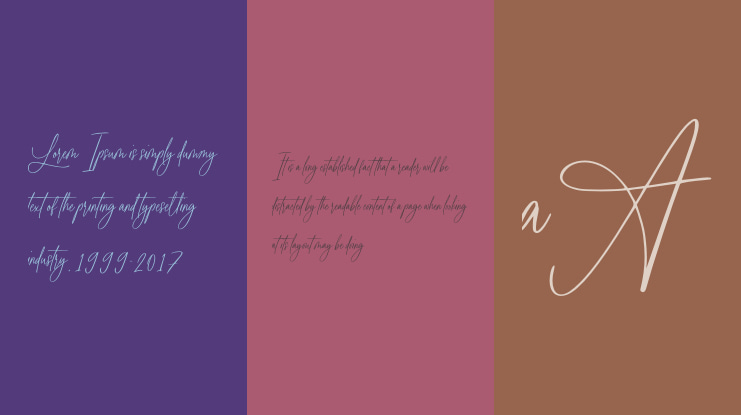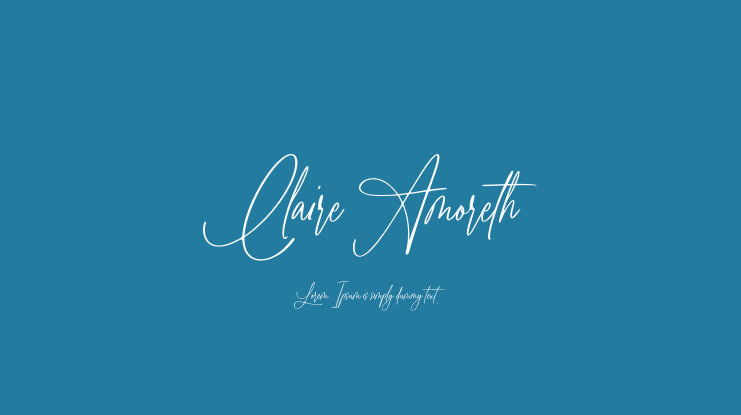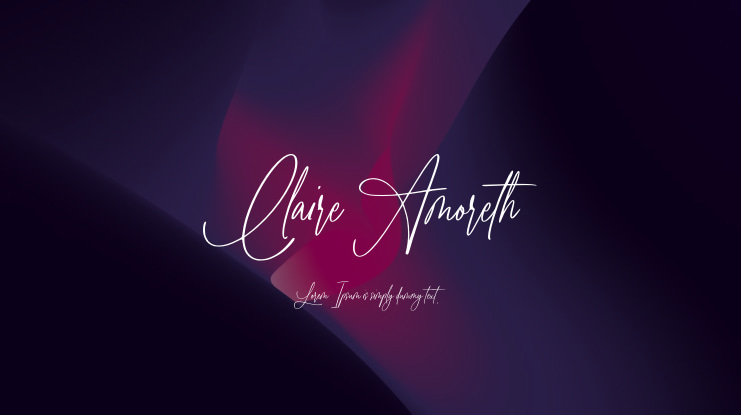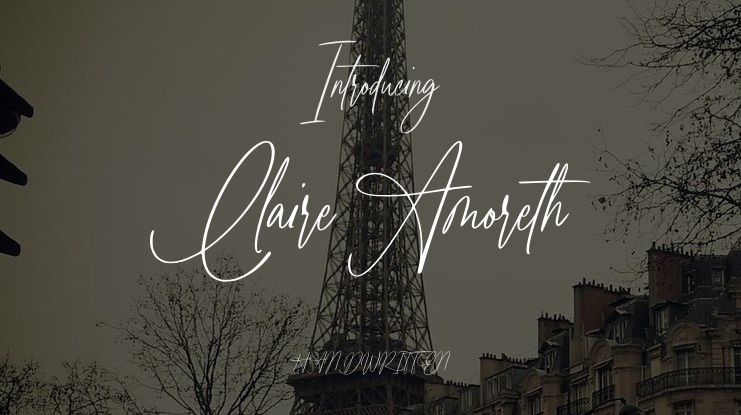
Meet Claire Amoreth, a charming handwritten script font that captures the beauty of natural, flowing cursive writing. With its graceful curves and organic strokes, this font adds a personal touch to your designs. Perfect for projects that require a blend of sophistication and relaxed charm, Claire Amoreth is the go-to choice for achieving a cozy handwritten look. Inspired by the art of calligraphy, Claire Amoreth exudes refined elegance with a hint of understated beauty. Its versatility makes it suitable for a wide range of applications, from wedding invitations and heartfelt messages to brand logos and design work. The fluid and delicate nature of Claire Amoreth lends a unique and cohesive quality to every word, transforming your text into a work of art. Explore the magic of handmade authenticity and elevate your designs with the timeless elegance of Claire Amoreth's handwritten script font.